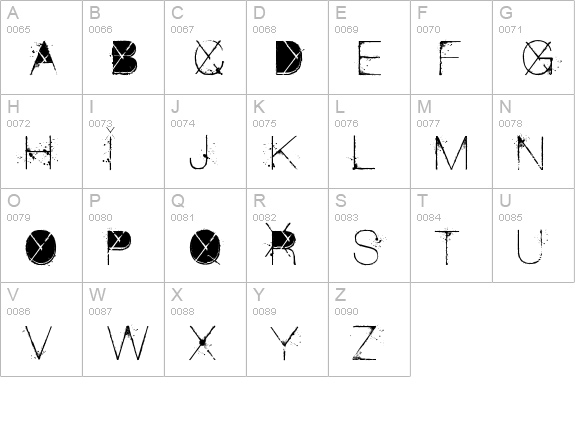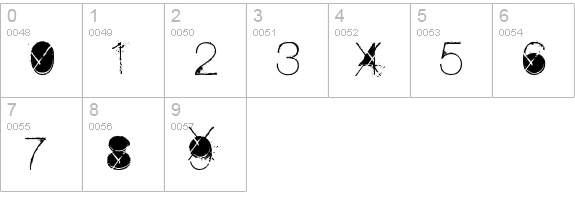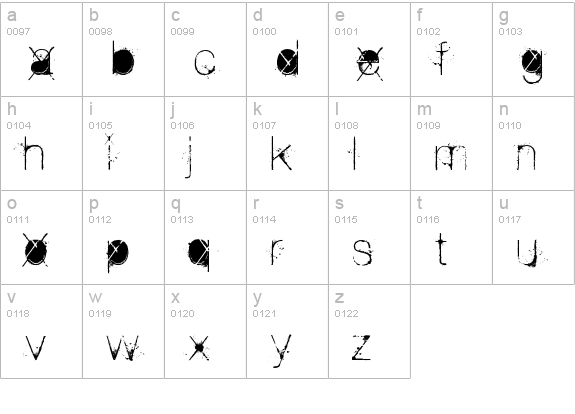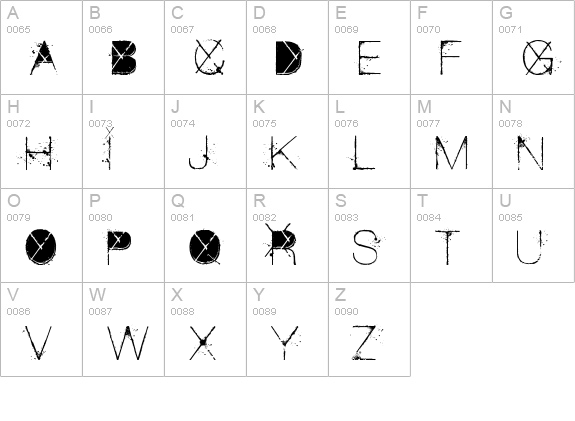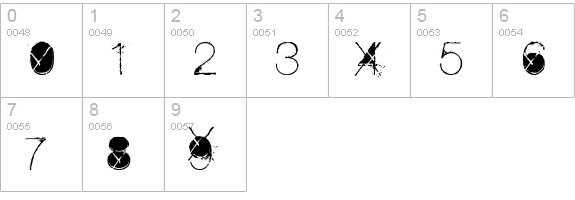
the Poison Font Details
Introducing Poison font, a mesmerizing and edgy typeface that exudes a sense of mystery and intrigue. With its sharp angles and unique design, Poison font is perfect for adding a touch of danger and excitement to your projects. Whether you're creating a poster, logo, or social media graphic, this font will make a bold statement. Best of all, Poison font is completely free to download at FontsMarket.com. This means you can unleash your creativity without any cost barriers. Don't miss out on this opportunity to elevate your designs with the captivating Poison font. Download it today and let your imagination run wild!